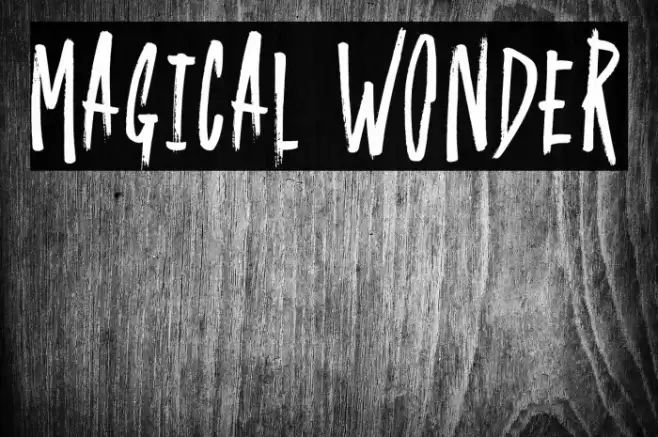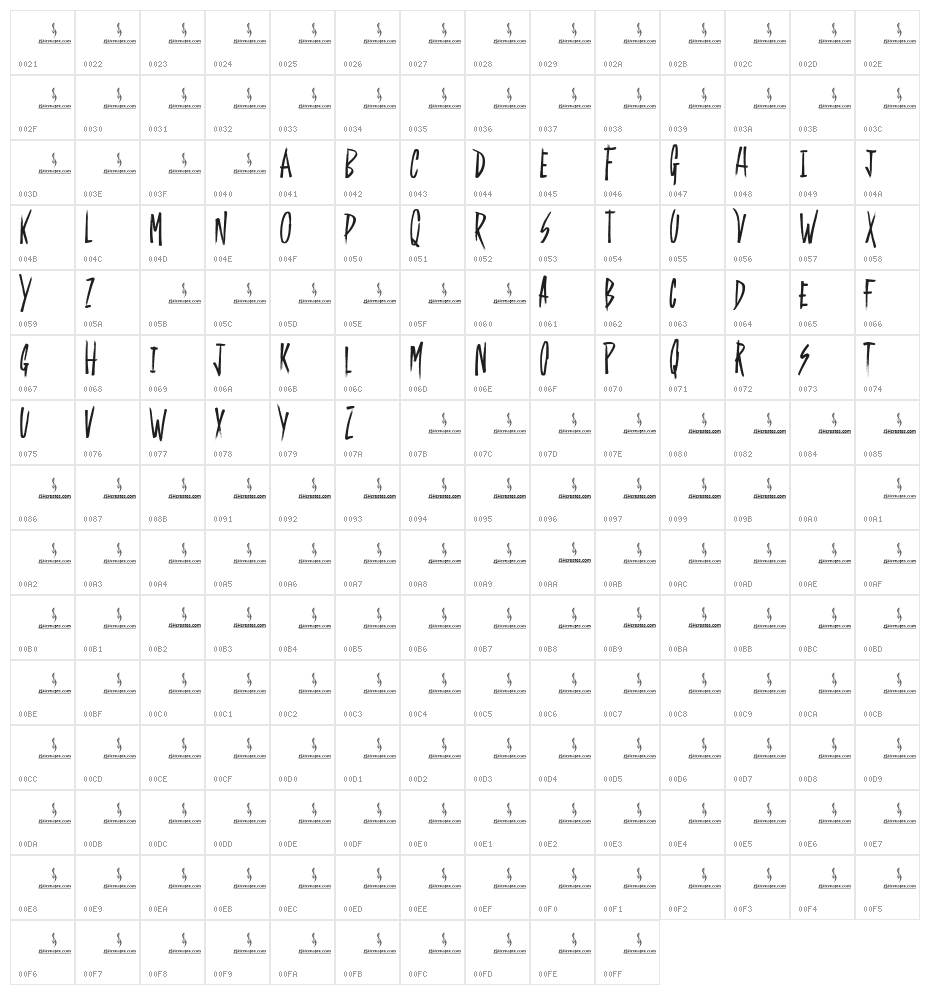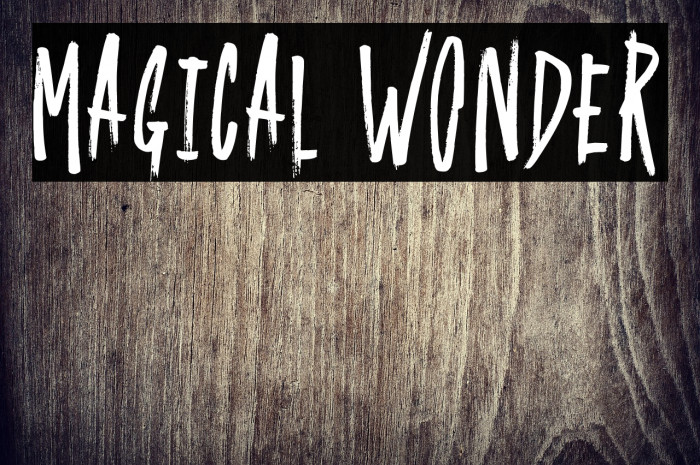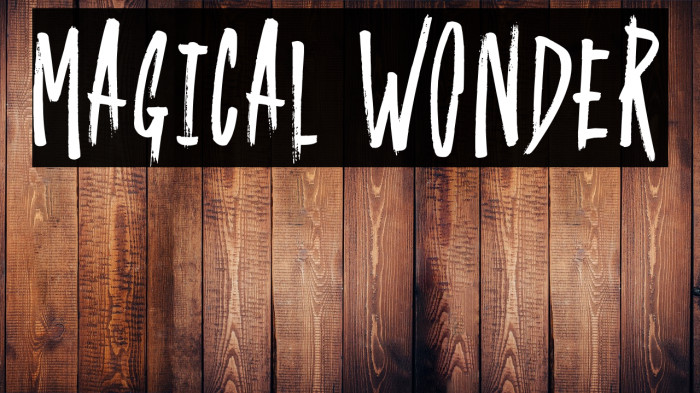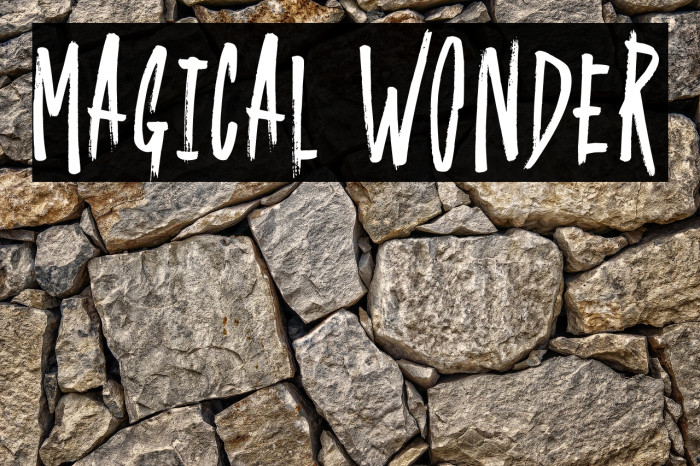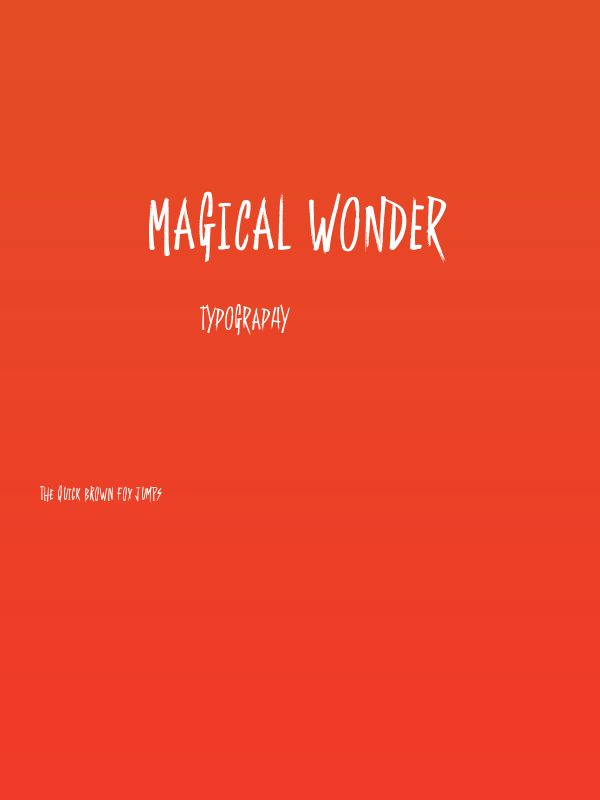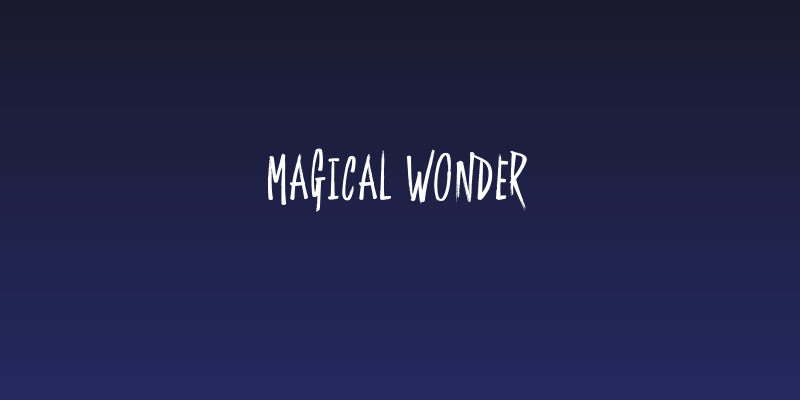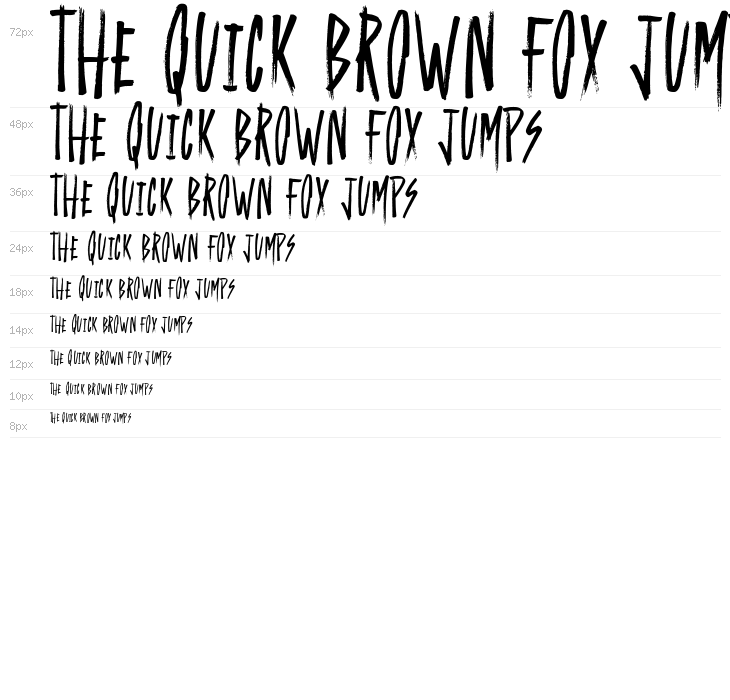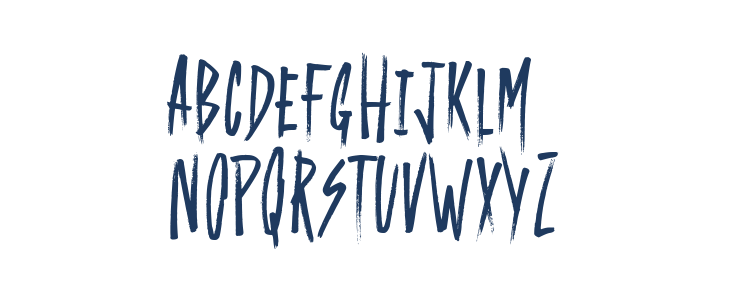
Magical Wonder Font
Magical Wonder Description
This font features a bold, expressive style with a hand-painted appearance. The strokes are uneven, giving it a dynamic and energetic feel. The characters are tall and narrow, with a slightly rough texture that adds to its artistic charm. The uppercase and lowercase letters maintain a consistent style, with some letters having unique, exaggerated forms that enhance its playful nature. This font is perfect for projects that require a creative and informal touch.
A bold, hand-painted font with an expressive and dynamic style from Regular fonts.
- Proposed Projects: Ideal for posters, album covers, branding, and creative advertising campaigns.